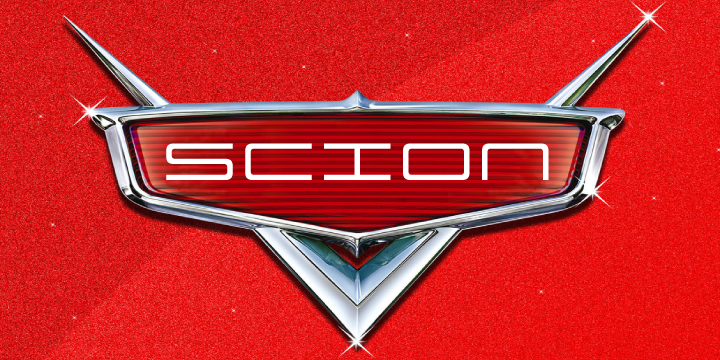
Scion Font Free Download is a sleek and contemporary sans-serif typeface designed for branding, headlines, digital interfaces, posters, and editorial design. Its clean lines and geometric structure offer a professional yet approachable feel.
What makes Scion Font so exciting is its versatility and clarity, making it perfect for a wide range of projects—from corporate identities to creative marketing materials. Its modern aesthetics ensure your message is delivered with impact and style.
The Scion Font family includes multiple weights, such as Light, Regular, Bold, and Black, giving designers the flexibility to create dynamic typographic hierarchies and emphasis.
Whether you’re crafting a bold logo or a clean website layout, Scion Font Free Download adds sophistication and readability to your work. You can download it for free to test, but commercial use requires a license. Elevate your designs with the sharp and polished look of Scion.